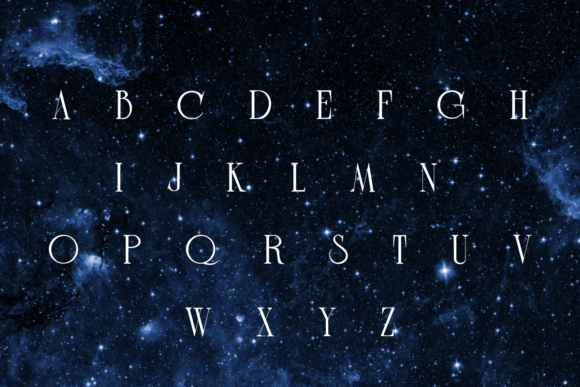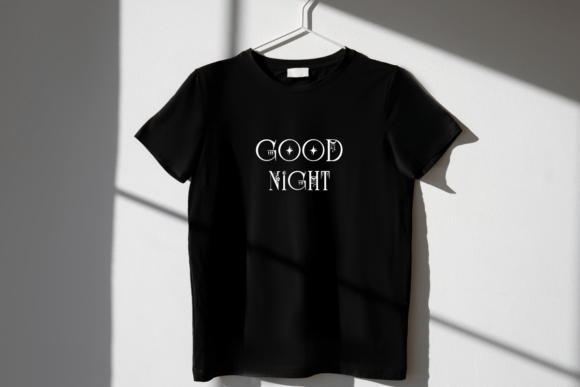
Celestial Moon Font
Celestial moon is a Decorative font You can use it for taking notes, writing a diary, or making greeting cards. However, you can still use it for other designs, such as banners, content, mugs, cards, shirts, stationery, social media posts, and more!